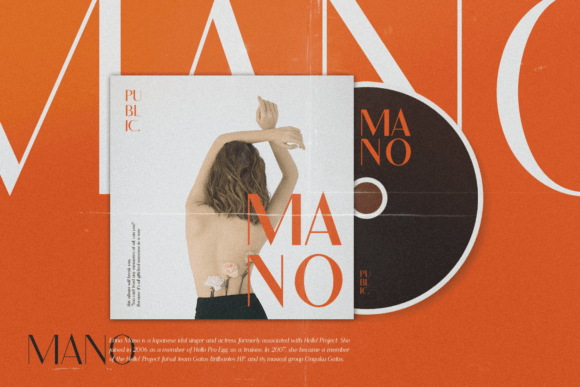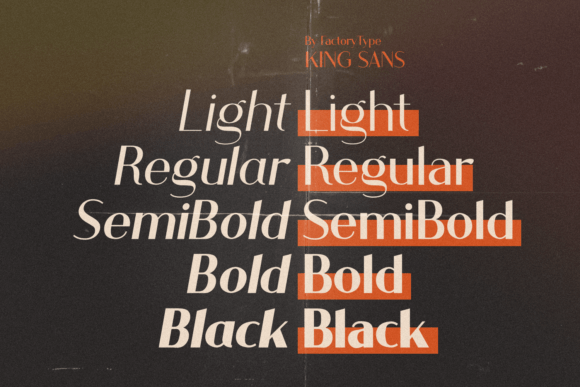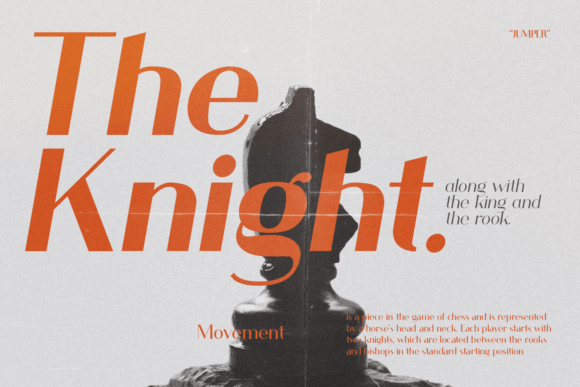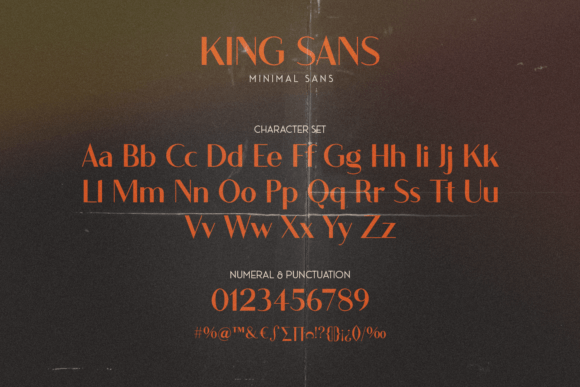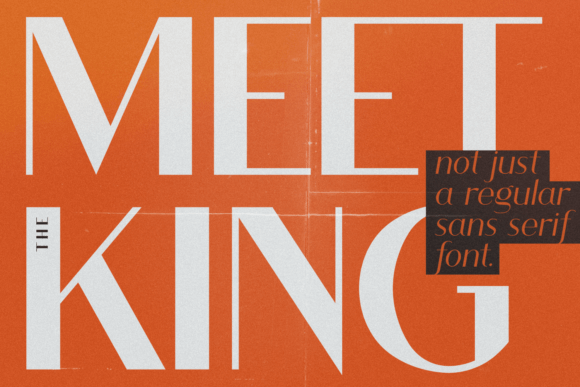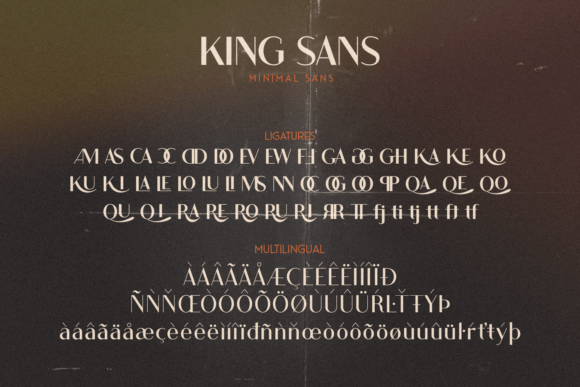
Introduction to King Font Font
Fonts play a crucial role in design, and the King Font font is a typeface that brings both character and versatility to any project. Whether you’re working on a branding project, a website, or a print design, the King Font font offers a unique style that can elevate your work.
King is a trendy, modern sans serif font that is perfect for design projects.
The casual and minimal style make this typeface well-suited for logos, retro or modern branding, or any other design need you may have This font is PUA encoded which means you can access all of the amazing glyphs and ligatures with ease.
Key Features of King Font Font
Why Choose King Font Font?
The King Font font is more than just a typeface – it’s a design tool that helps you communicate your message with style and clarity. Its unique character set and versatile design make it suitable for a wide range of applications, from elegant invitations to bold headlines.
With its carefully crafted letterforms and balanced proportions, the King Font font ensures readability and visual appeal across all mediums.
What makes King Font font special?
The King Font font stands out with its unique design, exceptional readability, and versatility across various design applications.